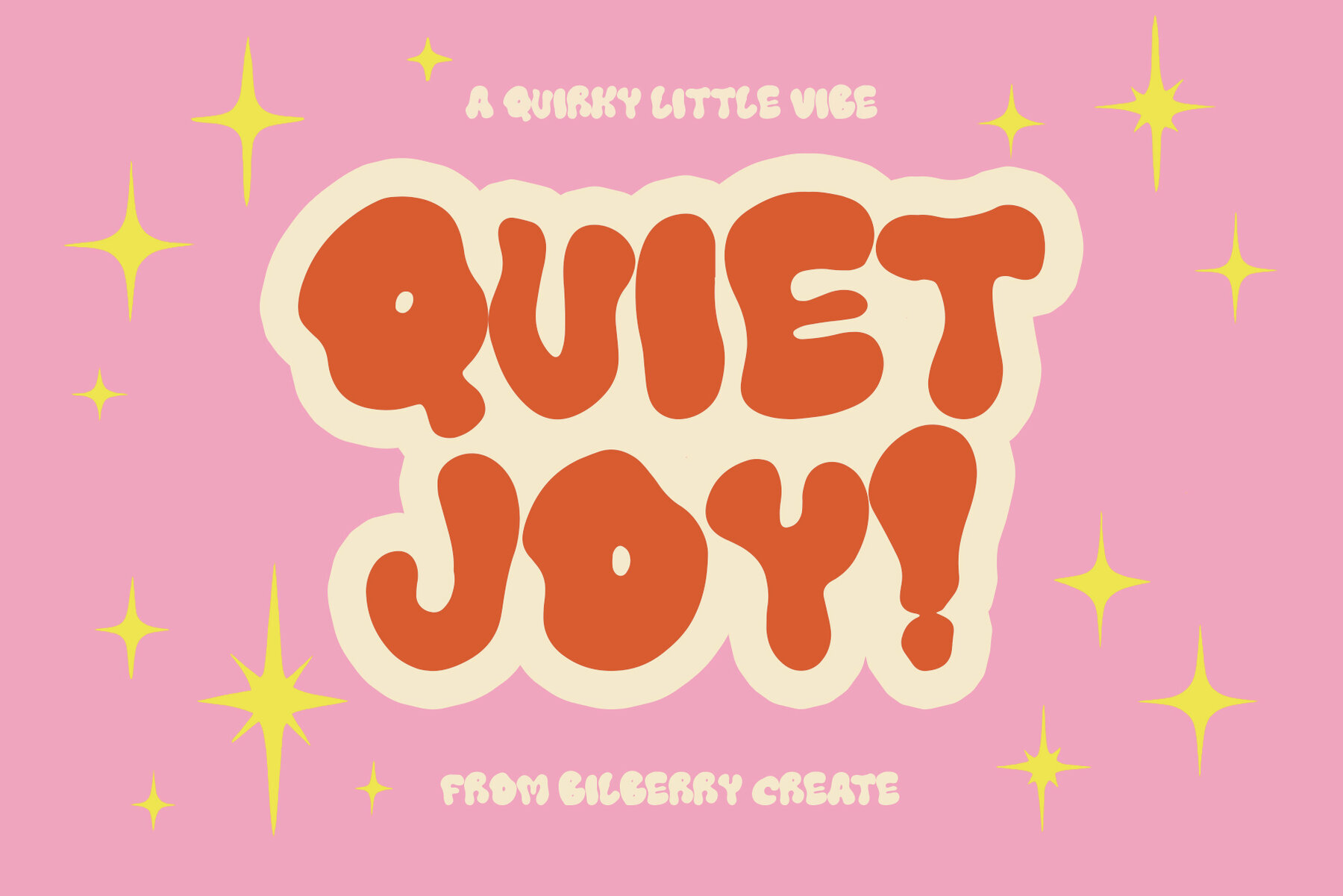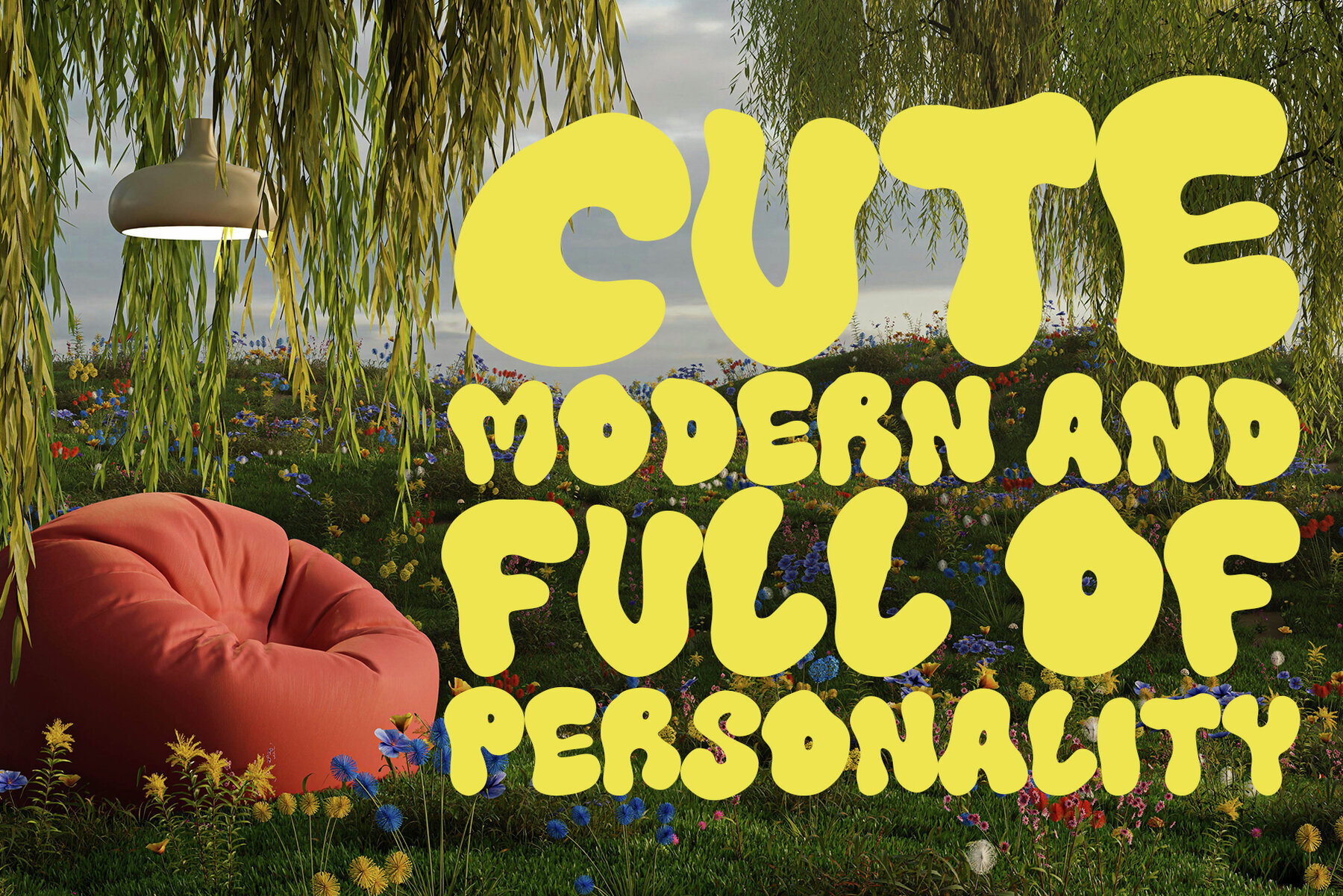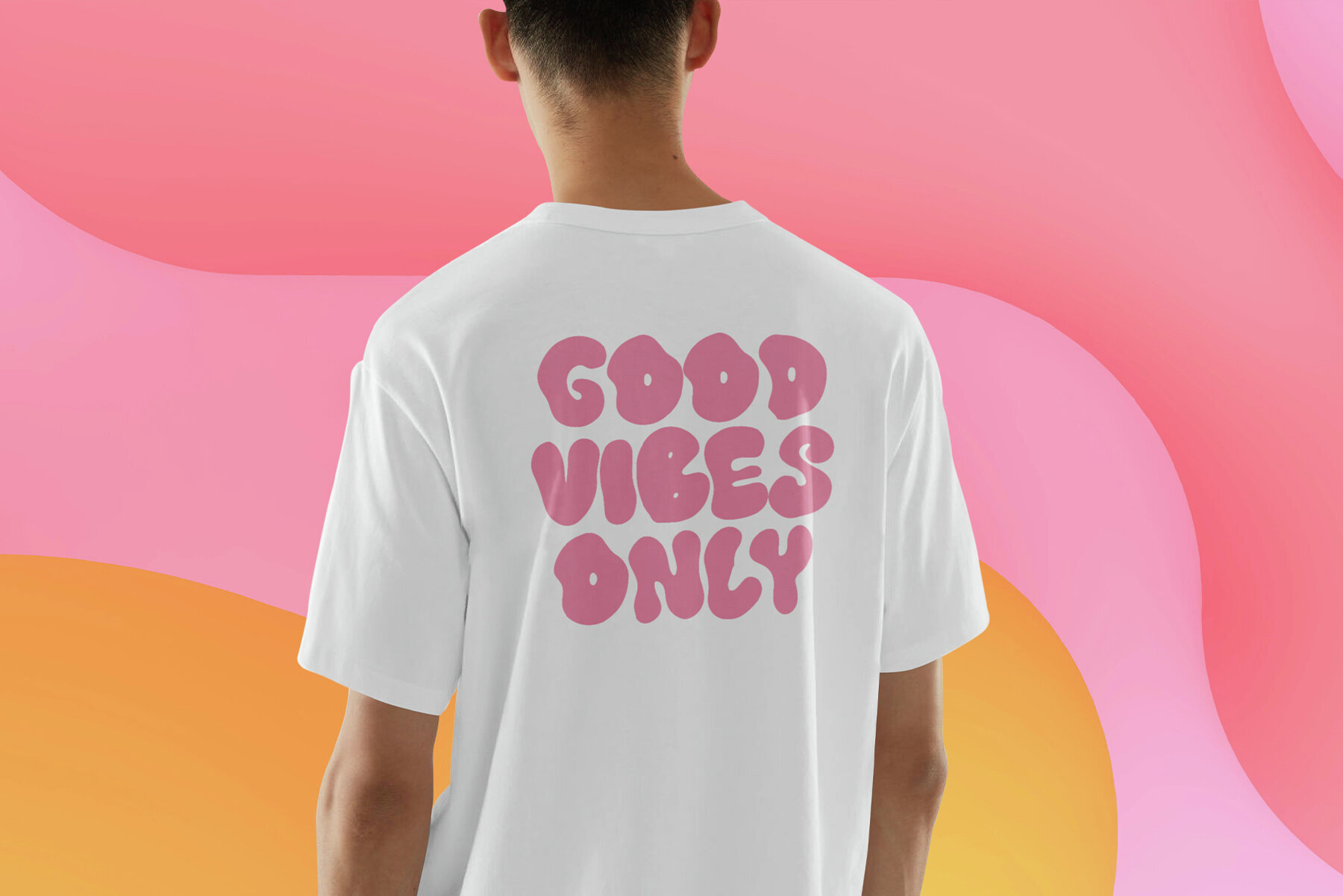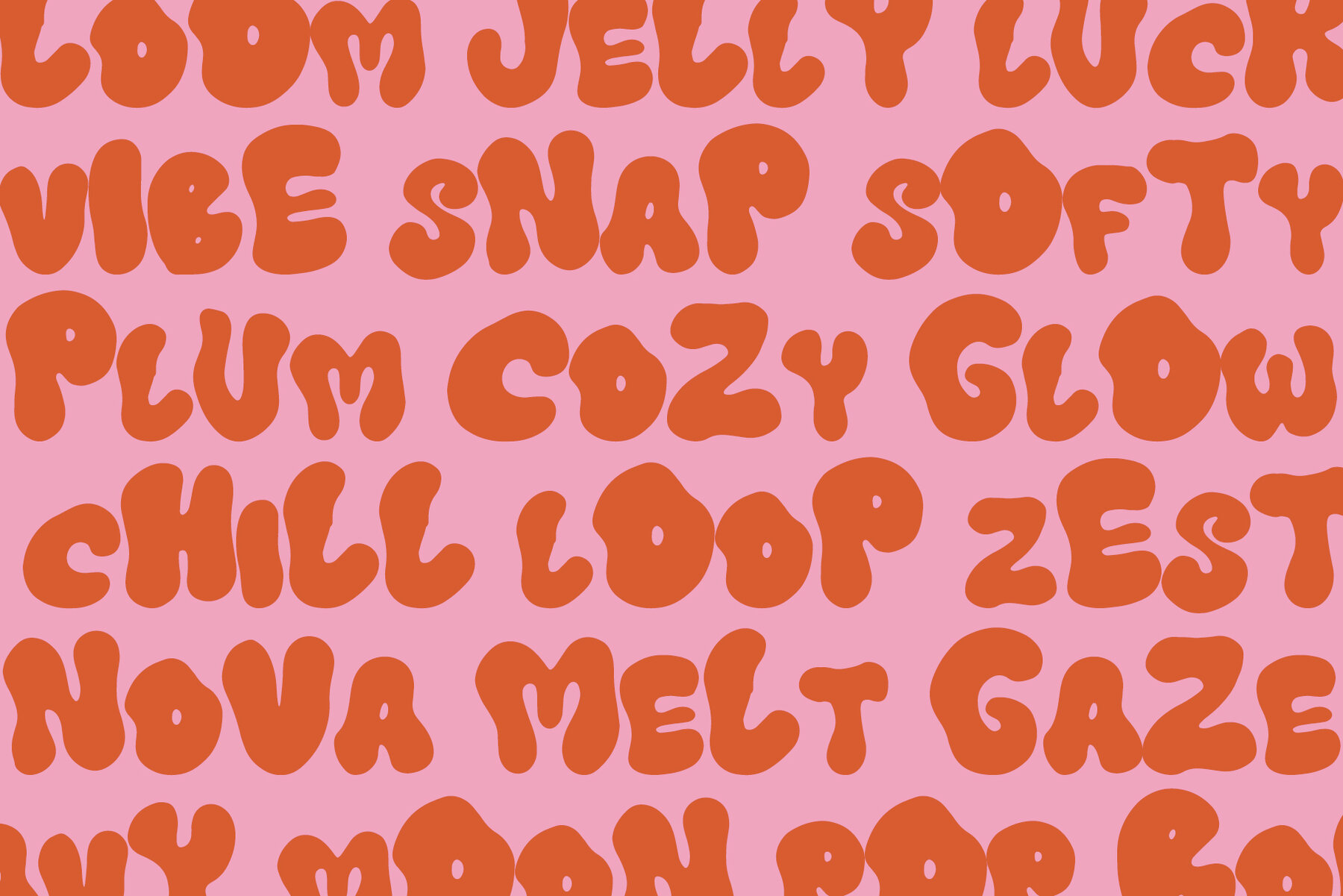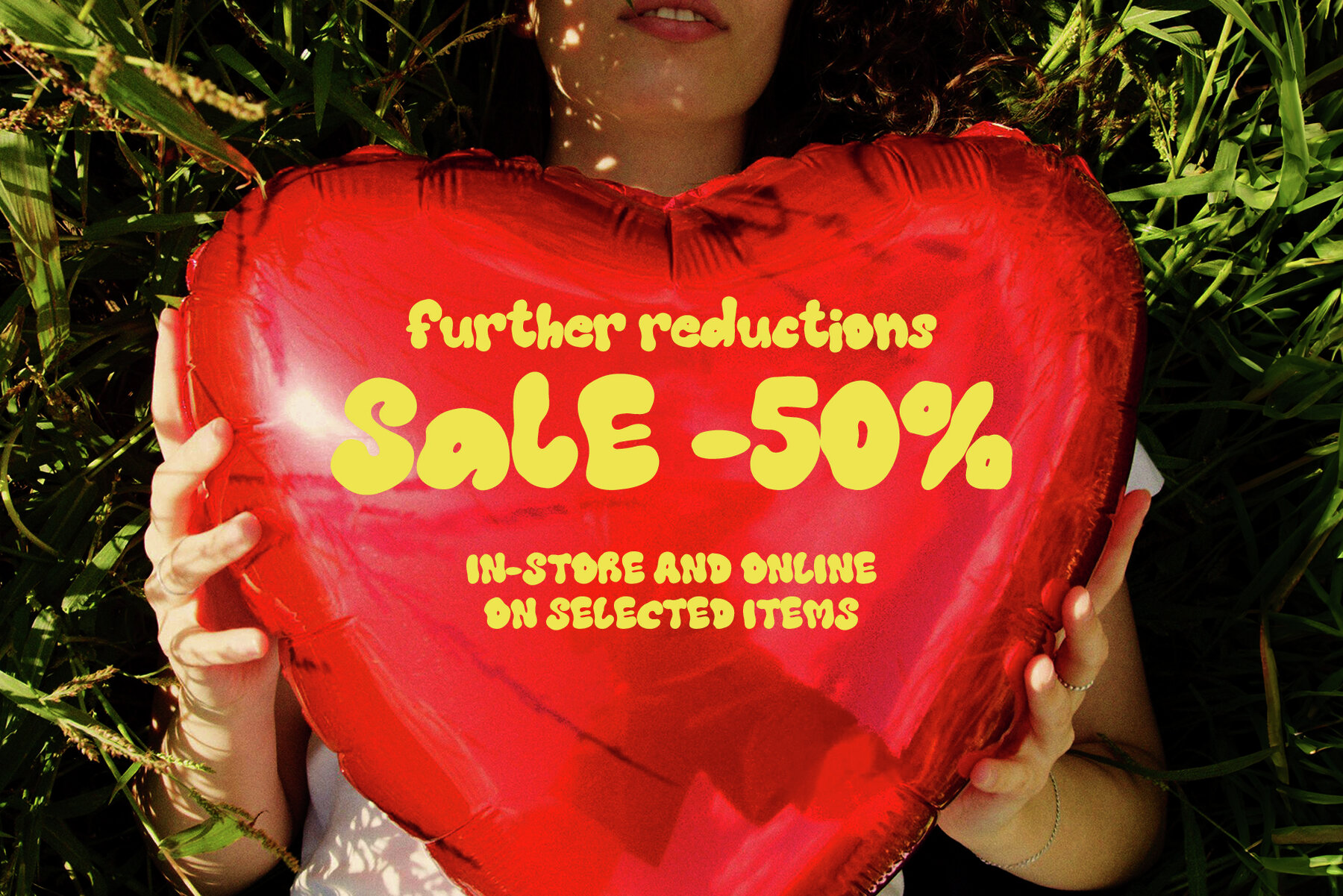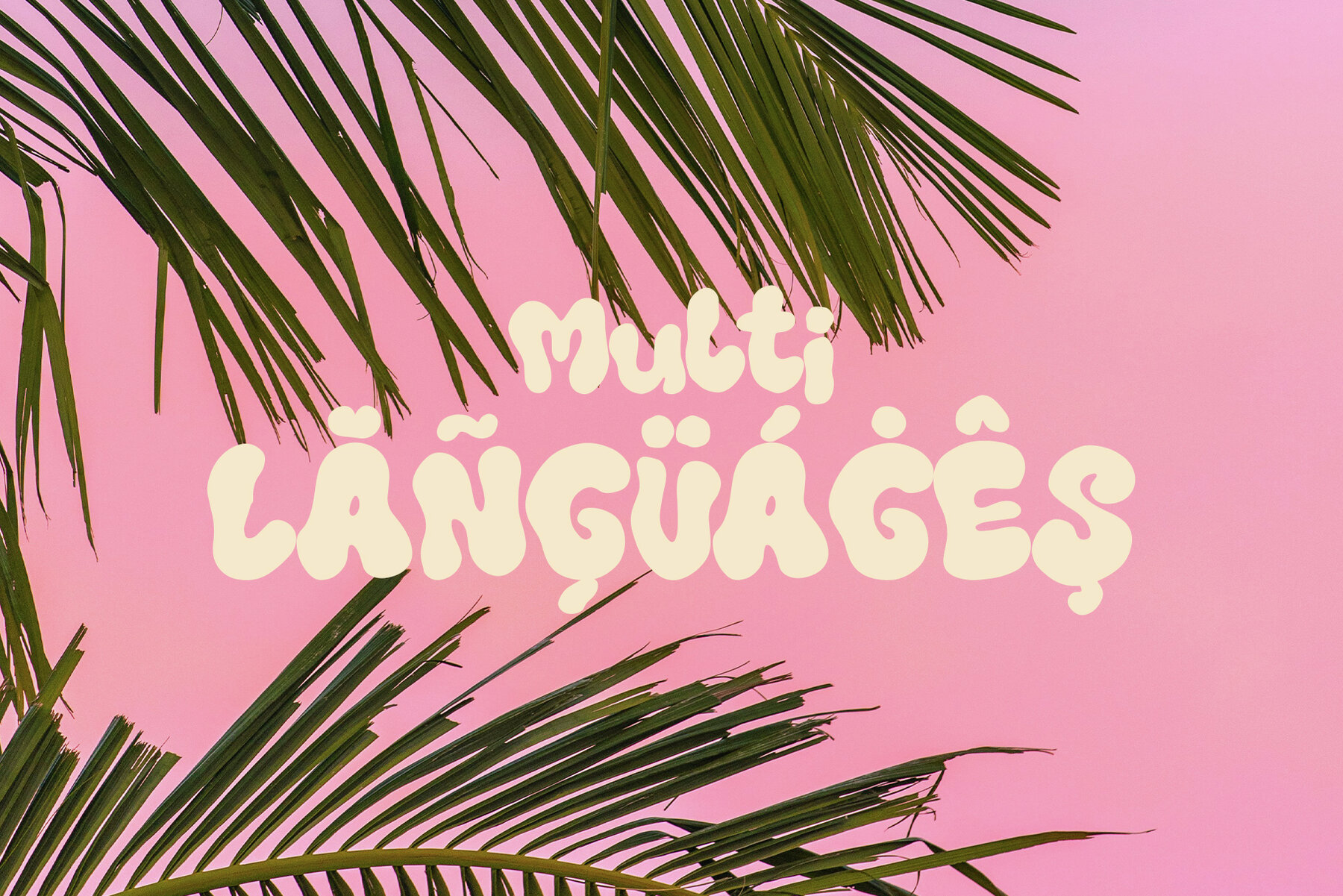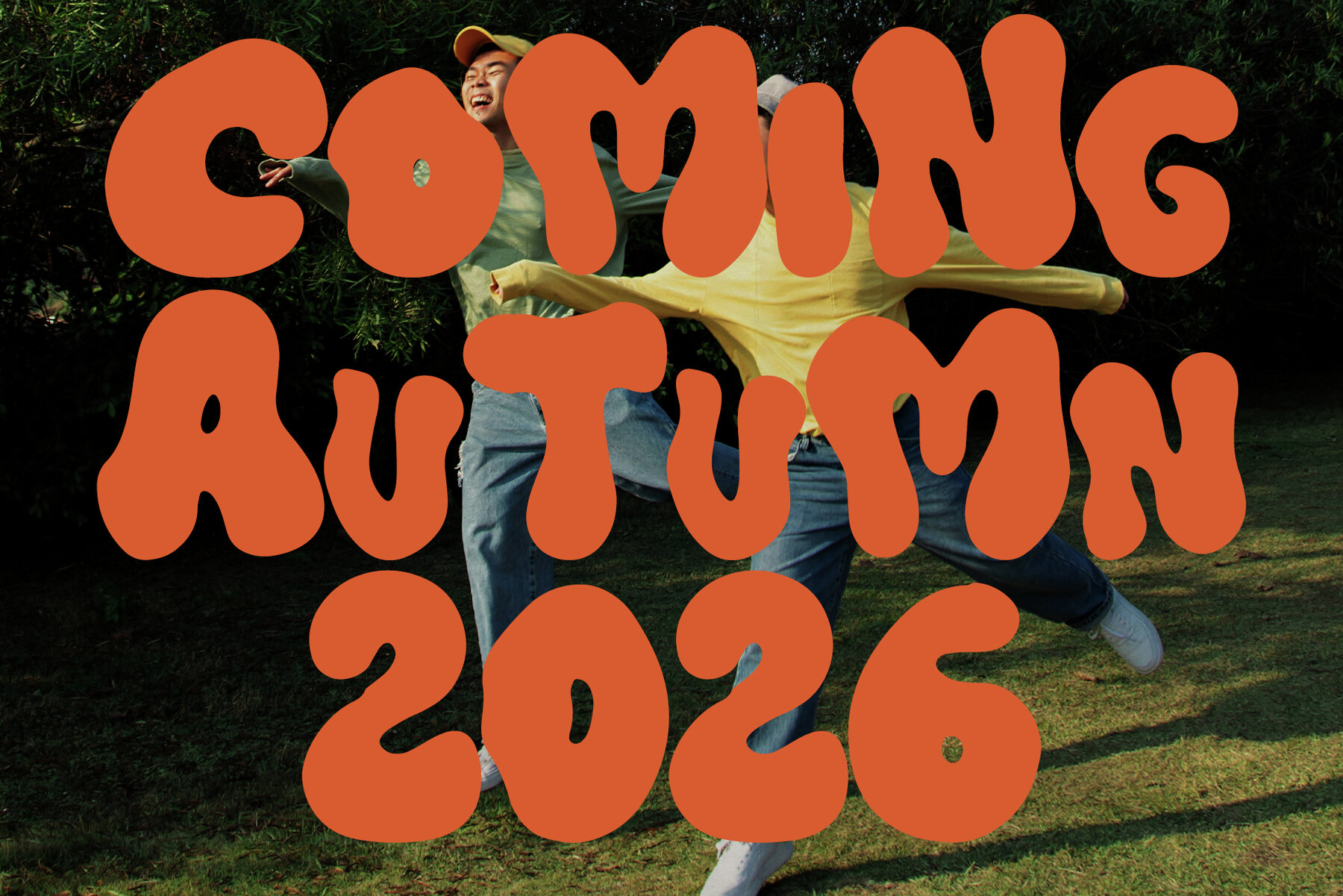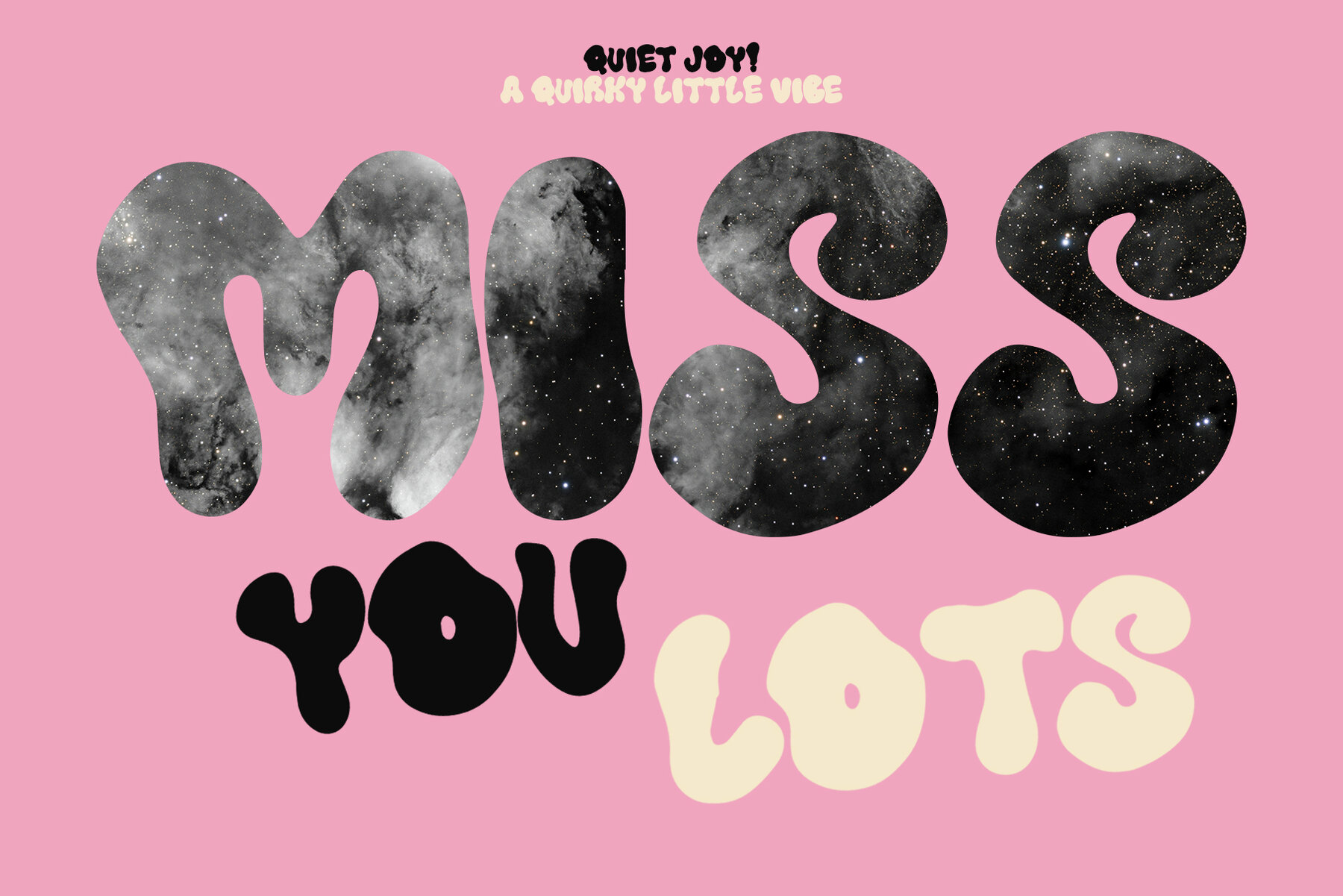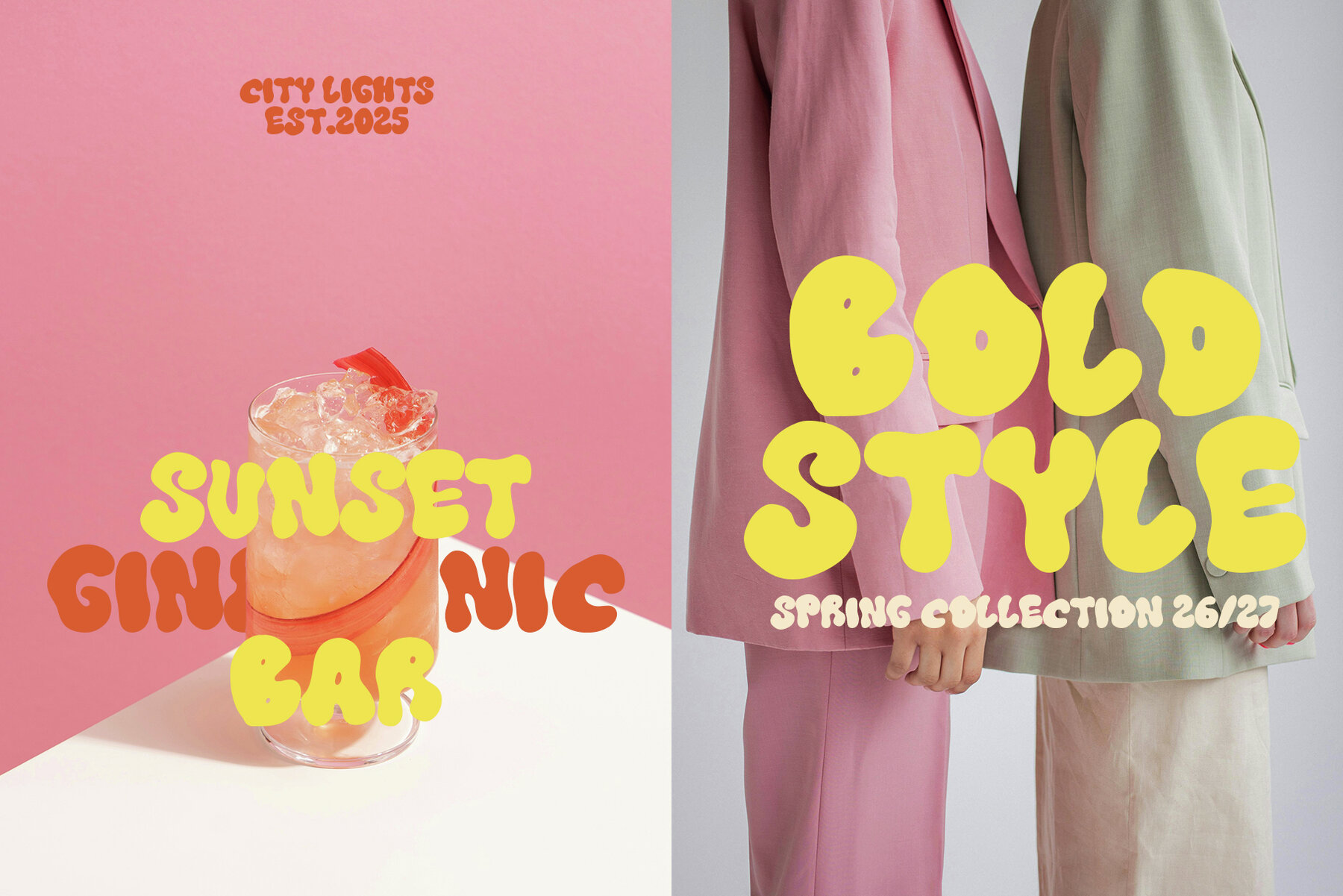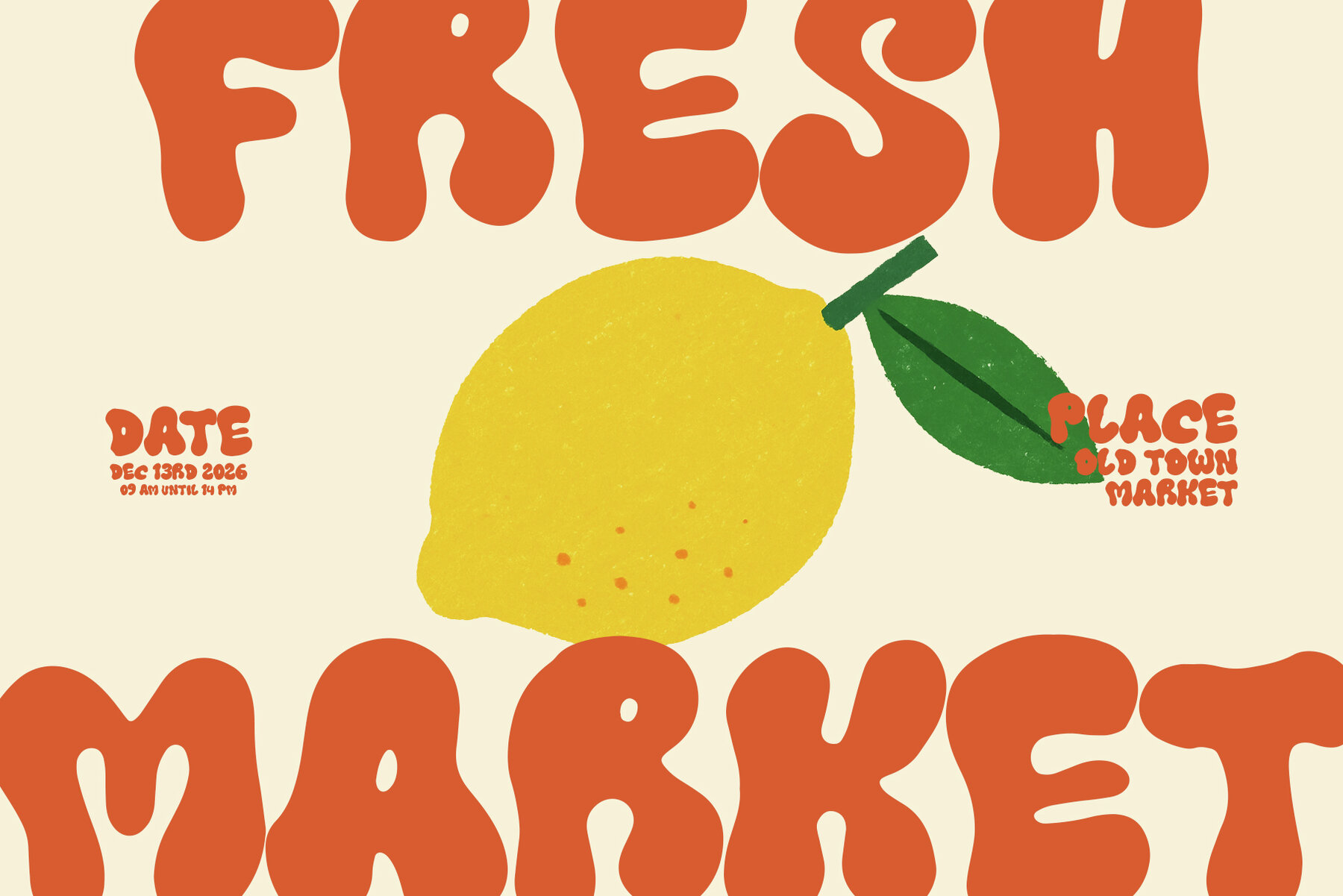
Quiet Joy Font
Quiet Joy Regular
Quiet Joy brings a vibrant, retro-inspired energy to any creative project. Its chunky, rounded letterforms deliver a friendly, approachable feel without sacrificing clarity. This all-caps bubble font is ideal for posters, social media graphics, stickers, kids’ projects, and branding efforts that call for a bold yet inviting personality.Quiet Joy – Playful Bubble Font with Retro Charm
Quiet Joy is designed for high visibility, making every word pop with a lively presence that draws attention naturally. The playful shapes add a cheerful, nostalgic feel that suits both contemporary and vintage-inspired designs, ensuring your visuals remain memorable and engaging.Key Features